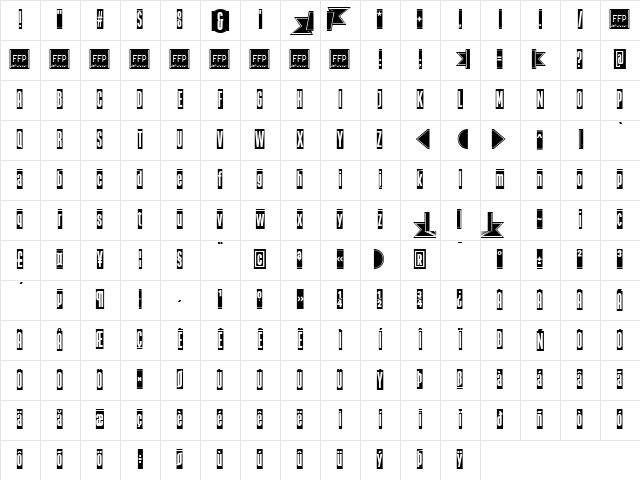
The Black Box FFP Free Font
The Black Box FFP
Foundry: deFharo
Designer: Fernando Haro
Design Context for The Black Box
The Black Box is a composed and adaptable typeface that performs quietly and consistently across a wide range of design contexts.